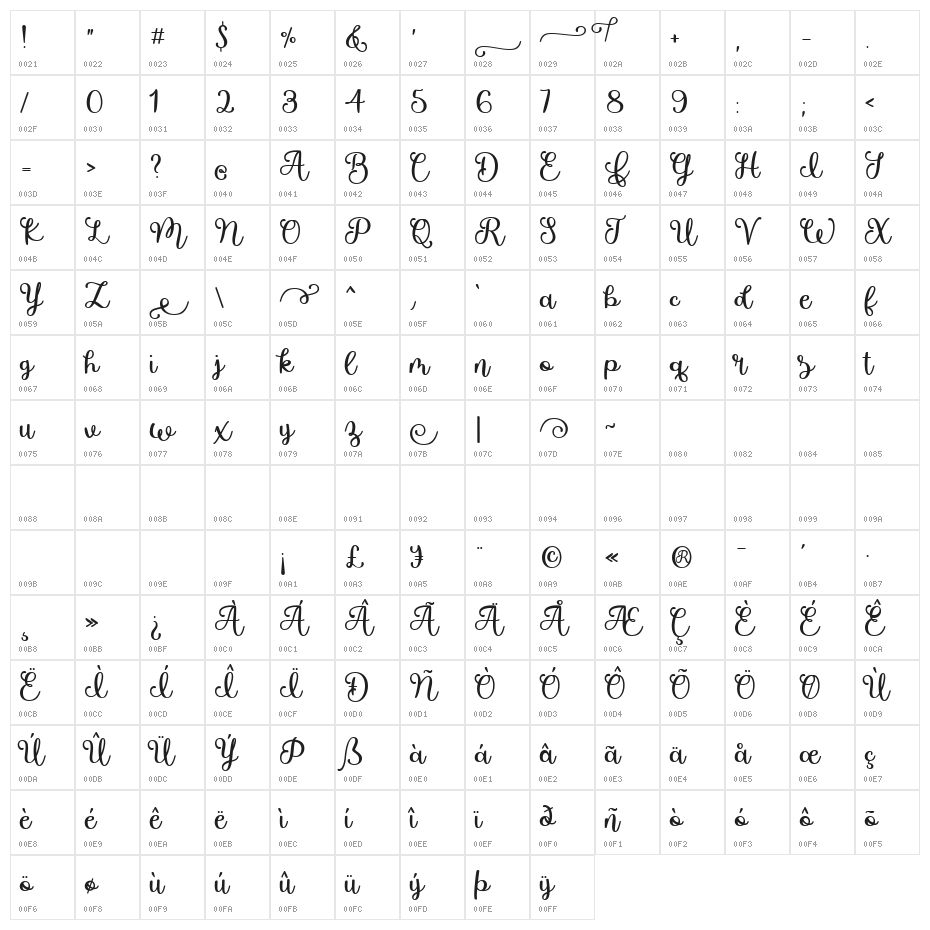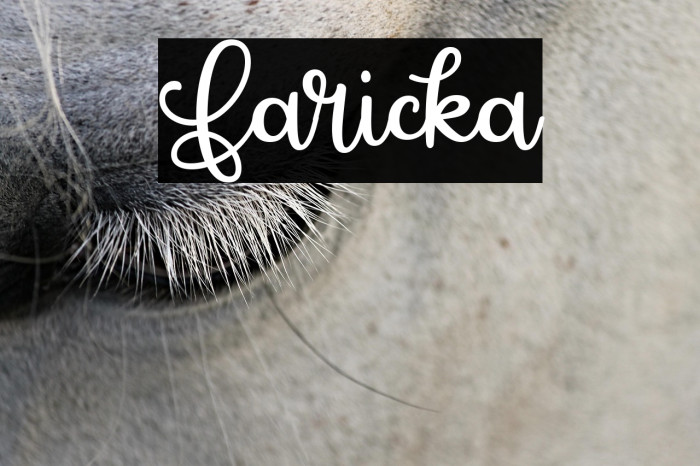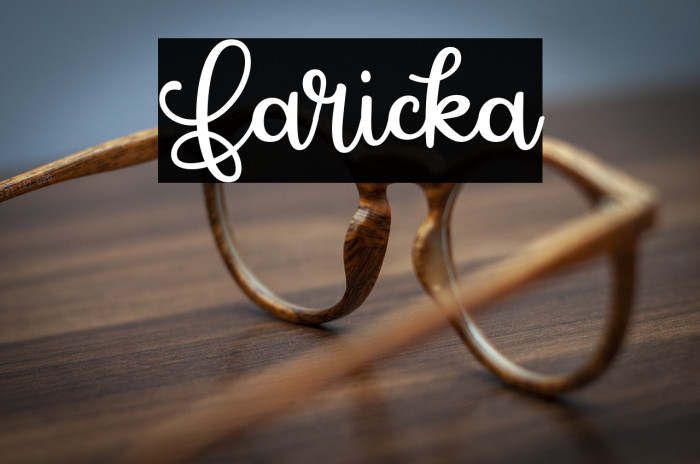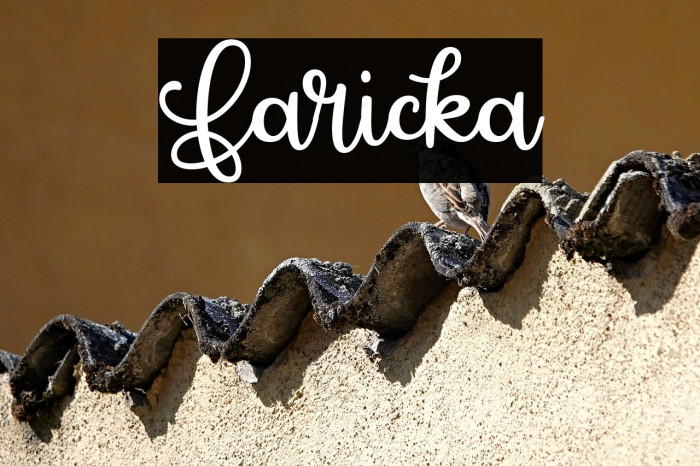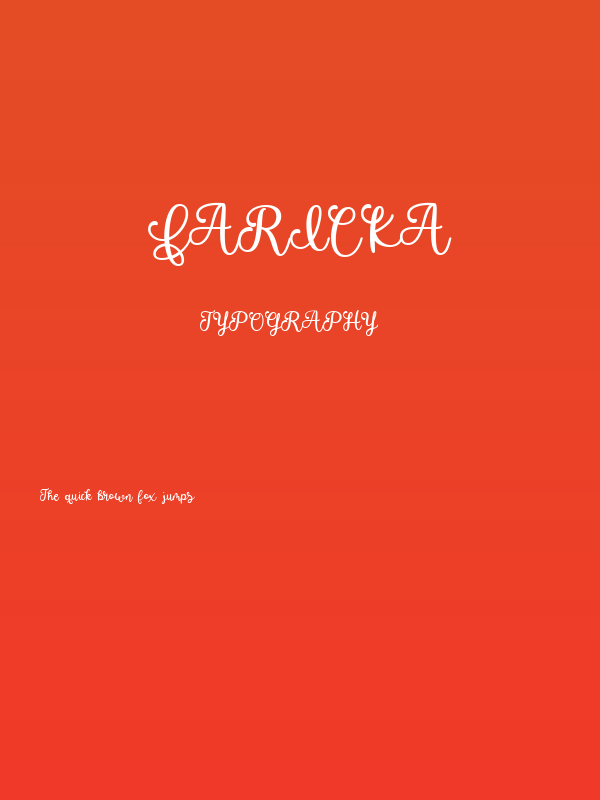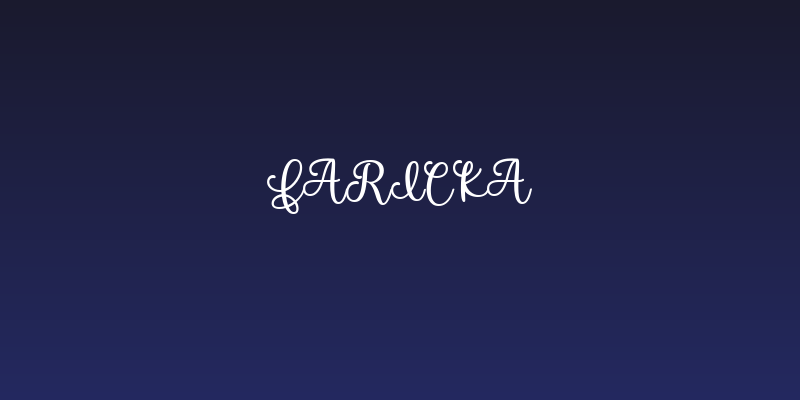
Faricka Font
Faricka Description
This font features a playful and elegant script style with a handwritten appearance. The uppercase letters are characterized by their flowing, interconnected strokes, giving a sense of continuity and fluidity. The lowercase letters maintain a consistent style, with rounded forms and smooth curves that enhance readability. The numerals are clear and distinct, following the same script style, which adds a touch of sophistication. Special characters are creatively designed, incorporating swirls and loops that complement the overall aesthetic. This font exudes a sense of charm and personality, making it suitable for a variety of creative applications.
| Use Case | Logos, Invitations, Decorative text |
| Proposed Projects | Ideal for wedding invitations, greeting cards, branding projects, and social media graphics. |